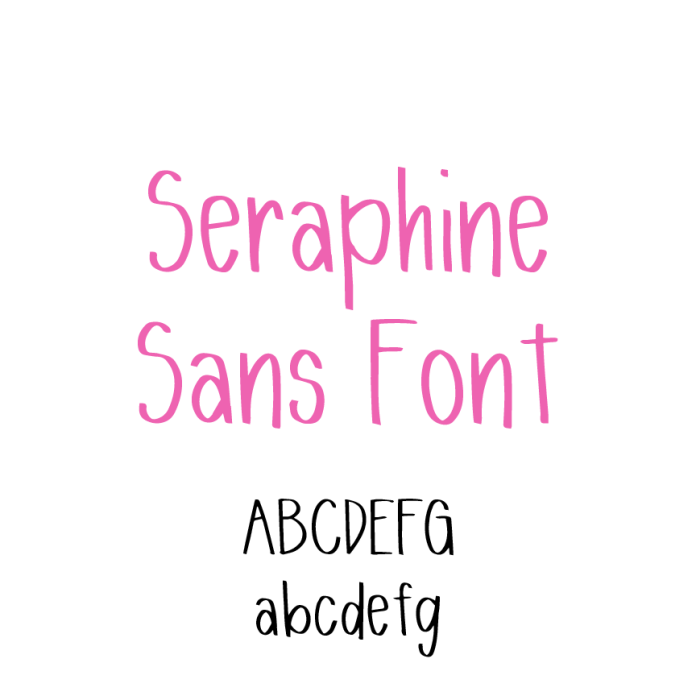
Introducing Seraphine Sans Font – a chic, sophisticated, and modern sans serif that brings elegance to your Silhouette designs! With its clean lines, refined letterforms, and subtle curves, Seraphine is perfect for minimalist invitations, sleek logos, vinyl decals, home décor, and more. This cut-friendly font ensures precise, smooth cuts on your Silhouette machine, making it ideal for high-end crafts, branding, and personal projects. Whether you're crafting stylish stationery, custom gifts, or elegant signage, Seraphine Sans adds a touch of luxury to every design. Download Seraphine Sans today and elevate your creations with a sleek, professional look!